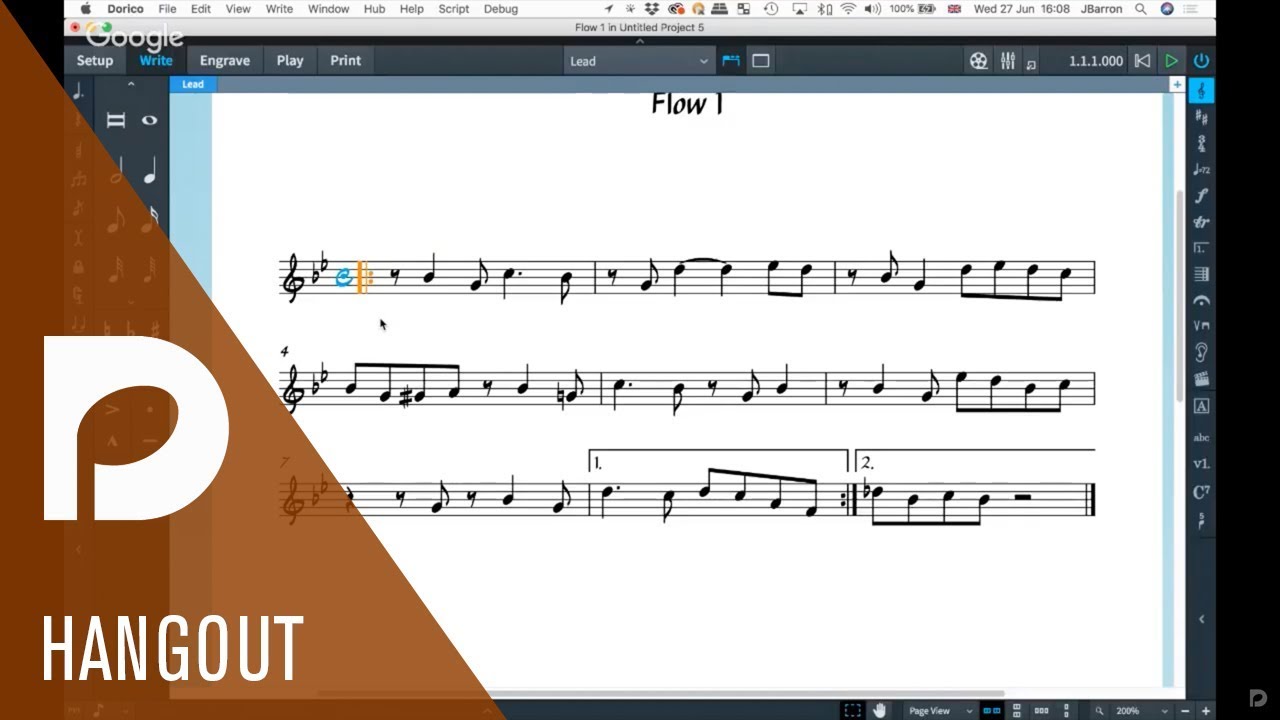
I purchased Dorico recently. I am in the middle of watching all 100 YouTube videos. So far I have watched 30 of them.
I already know that this program is very powerful and I will use maybe 10% of it.
What I do is just single lead sheets with chords.
I would like to have results similar to those found in Realbooks and Fakebooks.
How to configure Dorico to have a similar layout ?
How many fonts Dorico has ?
Which one should I use to have nice real book layout ?
I also read somewhere that you can purchase fonts separately ?
Is it worth it ?
Are external fonts working 100% and are compatible with Dorico ?
What I also don’t like is the chord symbols with “/” bass root.
In Dorico the bass is next to the chord which makes it too long especially when the chord is already complicated.
I would like the root bass to be under/below (at angle) to the chord.